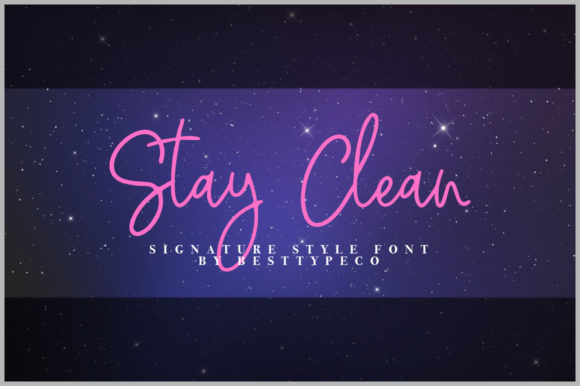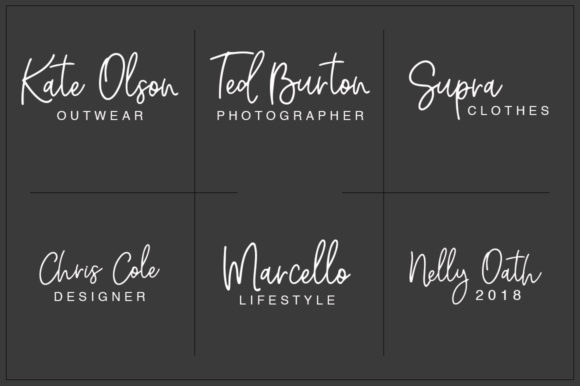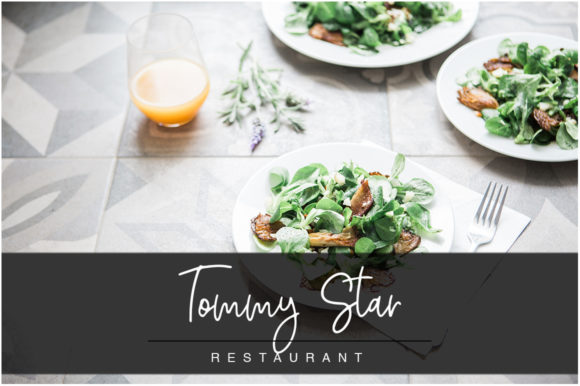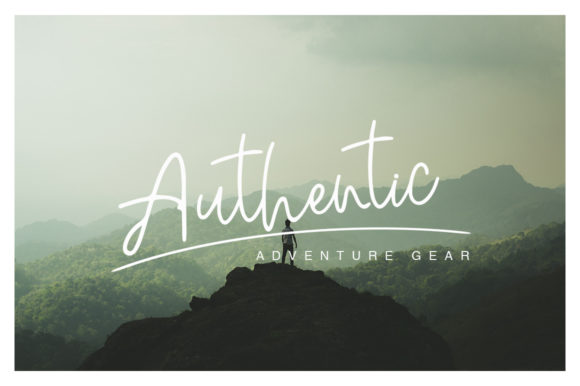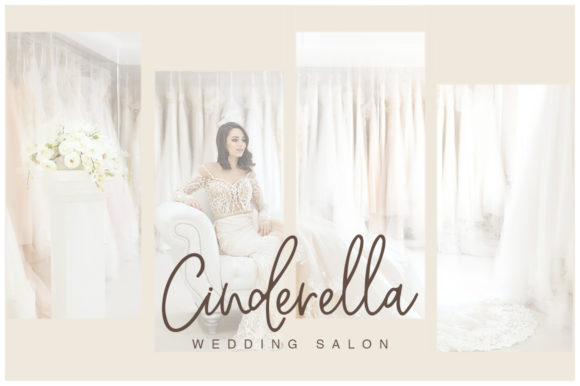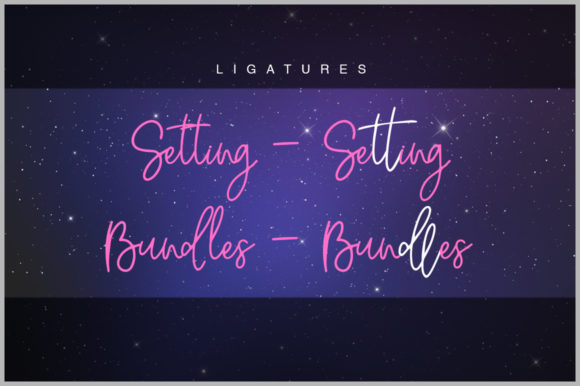
HomeScript FontsStay Clean Font Script Fonts Stay Clean Font FacebookXPinterestWhatsApp Stay Clean Font Poster 2 Stay Clean Font Poster 3 Stay Clean Font Poster 4 Stay Clean Font Poster 5 Stay Clean Font Poster 6 About Stay Clean Font Stay Clean is a cool and striking script that will turn any design project into a standout! DOWNLOAD ON CREATIVE FABRICAThis font is sold and delivered by Creative Fabrica. Font Canyon may earn a commission if you buy through this link. People also explored Ayesha Script Font Serfent Font Bronco Belle Typeface Font Holiday Park Font Xmas List Bold Font Mothers Font Jatanira Camteg Font Secret Island Font Northlands Font 388 0 TagsStay Clean Font Previous articleHey Ken FontNext articleMuggle Font LEAVE A REPLY Cancel reply Comment: Please enter your comment! Name:* Please enter your name here Email:* You have entered an incorrect email address! Please enter your email address here Website: Save my name, email, and website in this browser for the next time I comment. Personal Use Free Royal Bengal Tiger Personal Use Free Read more about this font Coconote Personal Use Free Read more about this font Cinderella Personal Use Free Read more about this font Bukhari Script Personal Use Free Read more about this font BLOG Top 7 Google Fonts Alternatives for Faster and Privacy-Friendly Web Design (2025) Top 7 Google Fonts Alternatives for Faster and Privacy-Friendly Web Design (2025) When it comes to web typography, Google Fonts has long been the go-to... Best Fonts for T-Shirt Design – Top 2025 Picks Using Fonts in Digital Marketing: Tips to Strengthen Your Brand Identity How to Cut Any Font on Cricut: Convert a Font to SVG (Free)